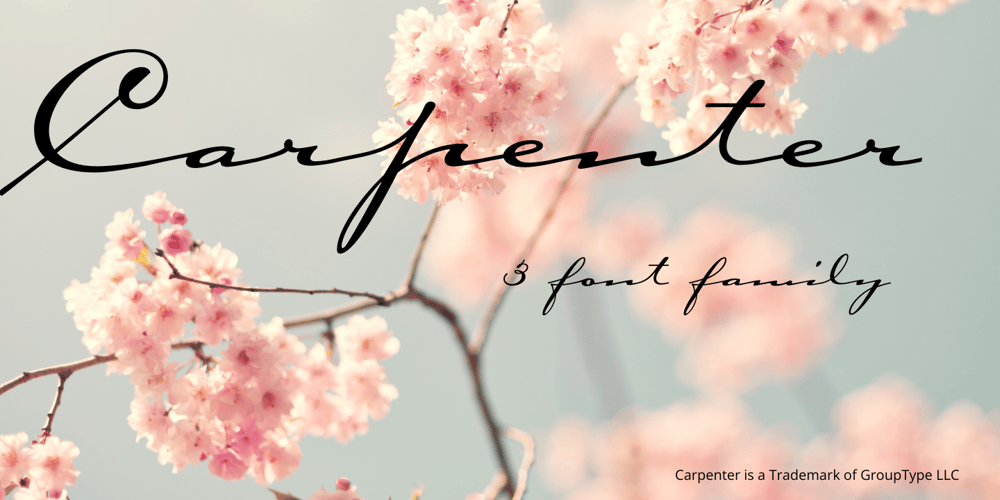
Carpenter Script Font Family was designed by James West and published by GroupType. Carpenter Script contains 3 styles and family package options. Carpenter® is a beautiful script perfectly suited for invitations and announcements. Created by James West, the design was a facsimile of the penmanship of Mr. Carpenter of R. Hoe & Co. and released by the Cleveland Type Foundry as one weight in 1882. It is now also available in SemiBold and Bold. The style of this script is very reminiscent of formal handwriting popular in the late 19 and early 20th centuries. It is graceful with formal structure. Its x-height is very small, with unusually long ascenders and descenders. Although there are many script fonts available, Carpenter is a historical design with a truly unique personality that will add a truly unique look and feel to your design. From GroupType™, Carpenter is available in TrueType and OpenType.